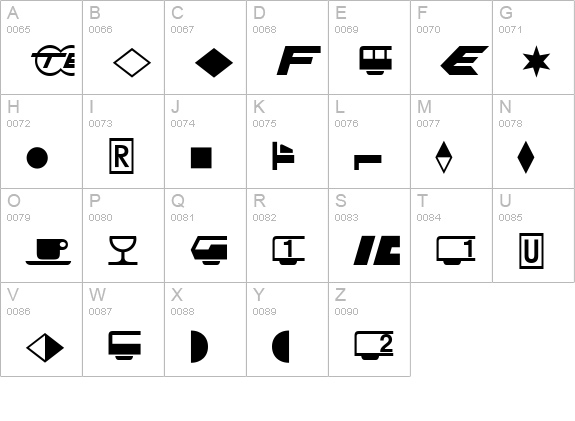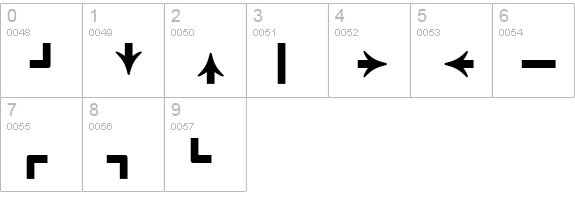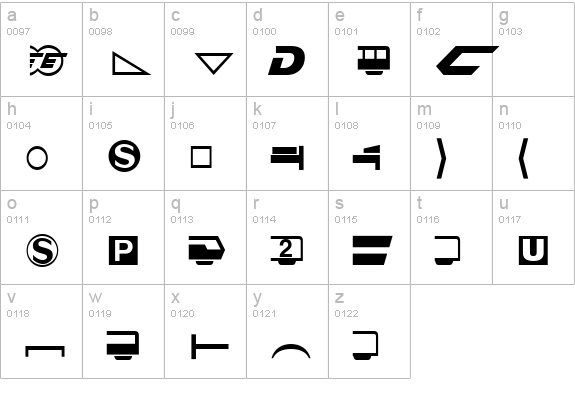
Format Pi Three SSi Font Details
Format Pi Three SSi font is a modern and stylish typeface that exudes sophistication and elegance. Its sleek and streamlined design makes it perfect for a wide range of design projects, from branding to editorial work. This font features clean lines and sharp angles, giving it a contemporary and edgy look. What sets Format Pi Three SSi font apart is its versatility - it can be used for both headlines and body text, making it a great choice for projects that require a cohesive and polished look. Whether you're working on a website, a magazine layout, or a branding project, this font will elevate your design and make it stand out. The best part is that Format Pi Three SSi font is completely free to download at FontsMarket.com. This means you can start using it in your projects right away, without having to worry about any additional costs. Don't miss out on this fantastic opportunity to enhance your designs with this stunning and modern font. Download Format Pi Three SSi font today and take your work to the next level!